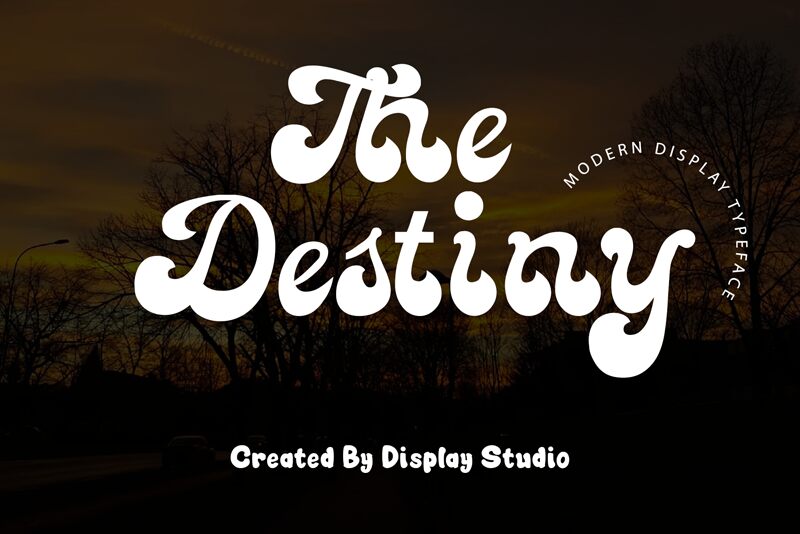
Introducing The Destiny: A bold, groovy script display font designed by Display Studio. Perfect for adding a unique touch to your creative projects - from posters and logos to t-shirt designs and more.
The Destiny